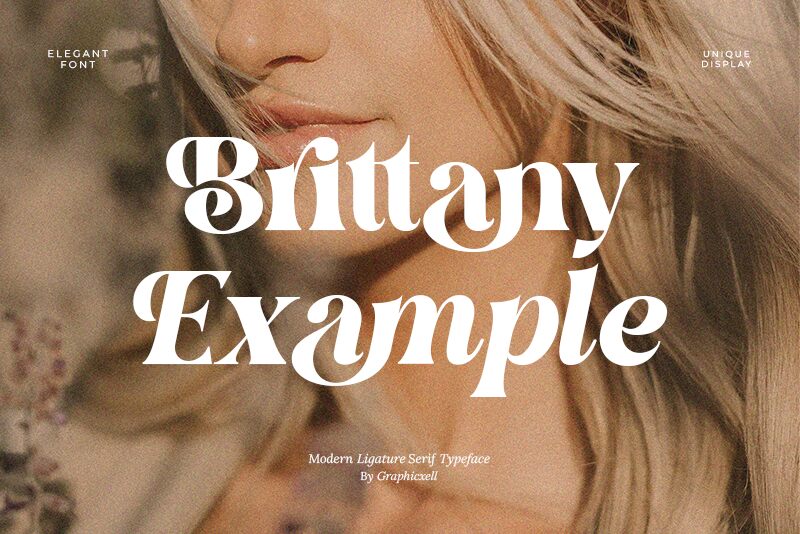
Brittany Example Italic
Brittany Example Italic emerges as a distinctive member of the Brittany Example font family, showcasing the elegance of serif fonts with a modern twist. Crafted by Graphicxell, this bold typeface combines assertive weight with delicate italicization, creating a dynamic and visually appealing contrast.
The design exudes sophistication and charm, making it an exceptional choice for editorial work, luxury branding, and high-end product packaging. Its pronounced serifs provide a classic foundation while the italic style introduces movement and flair, ensuring that any text stands out with character and finesse.
The Brittany Example Italic's boldness makes it perfect for headlines that demand attention or for accentuating key points in creative compositions. Its stylish contours suggest versatility across both digital and print mediums — from sophisticated web design to artisanal publishing.
Embrace the unique blend of tradition and innovation with Brittany Example Italic; let its aesthetic allure elevate your creative projects to new heights.